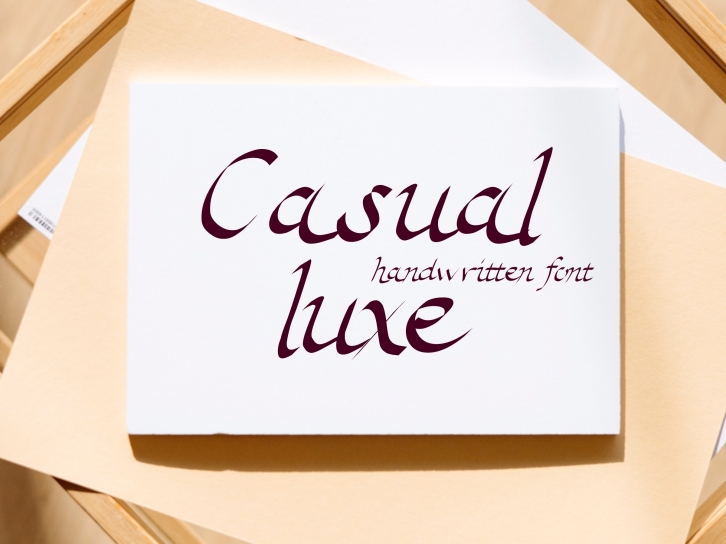
Casual Luxe is an elegant scripT font. Balanced and varied, this font will be the ideal font for various products, such as logos, cards, and any project that requires impressive typography.